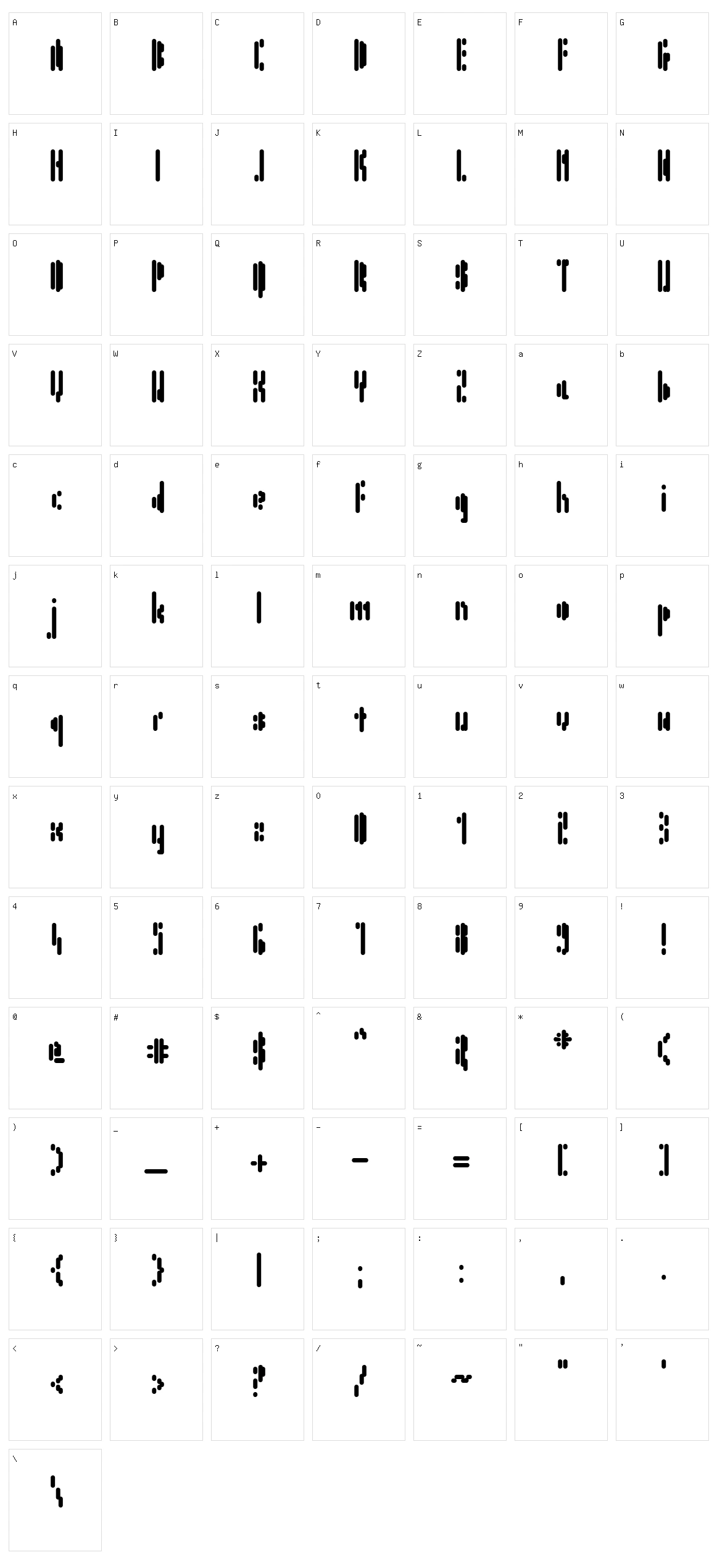
ÿþA i r i n S p a c e i s a n a b s t r a c t s c i - f i t h e m e f o n t . B e t t e r r e a d a b l e i n s m a l l s i z e s , g o o d f o r l o g o s i n l a r g e s i z e .